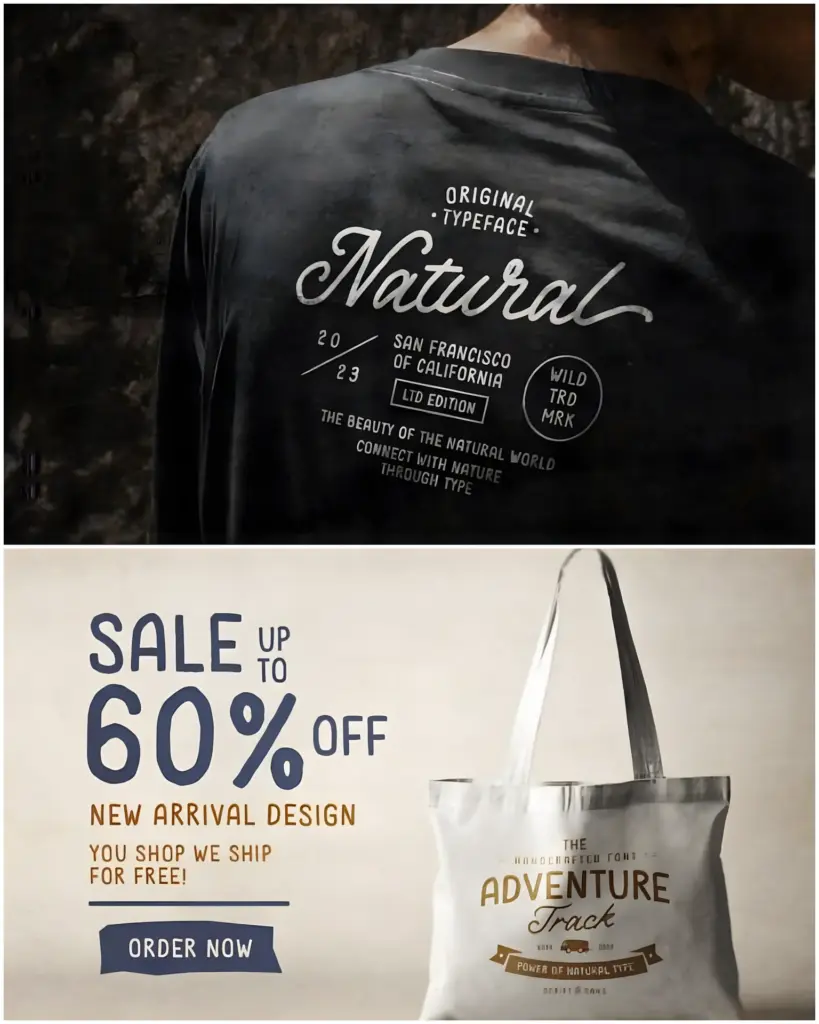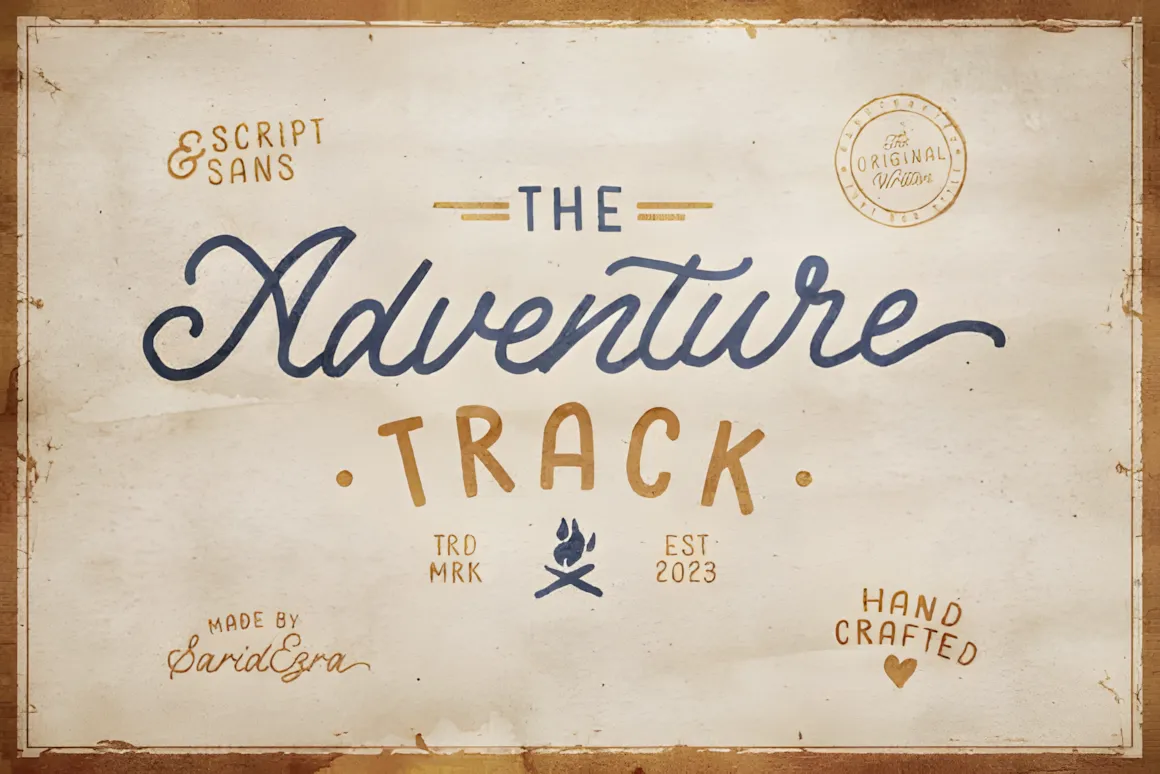
Adventure Track Font Duo for Logo and Branding
Adventure Track is a cool, handmade font combo with a script and a sans-serif style. It’s super easy to whip up logos or badges for your outdoor or trip designs with this set. Plus, it’s awesome for quotes. If you want something that feels natural and handmade, this font duo is perfect! It also supports lots of languages!